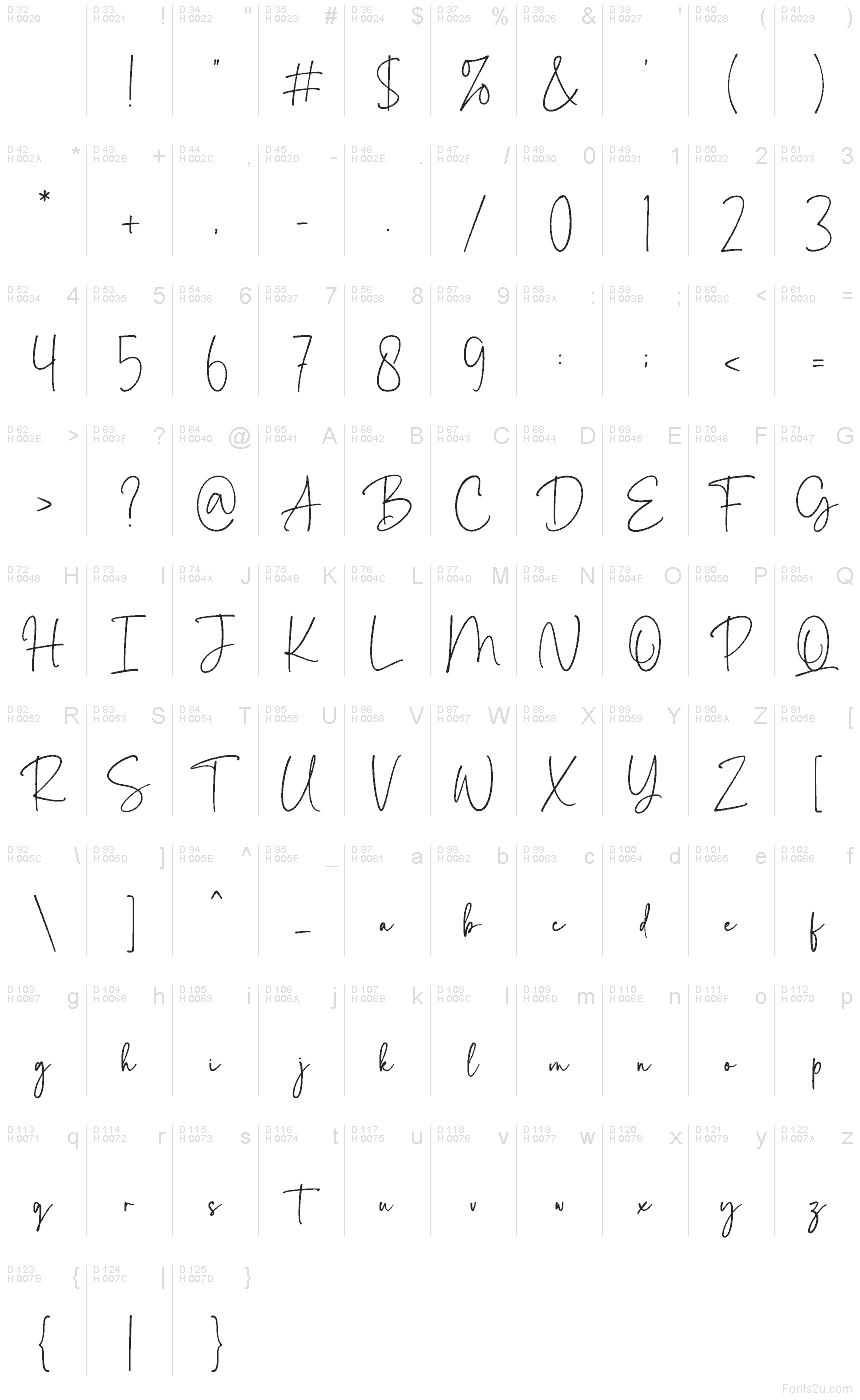
Anytta
Anytta font designed by RantautypeStudio is a handwritten light font with cursive letters that blends casual elegance and expressive characters. The font is a result of combining freeform serifs and a contemporary flair that produces both dashing headlines and legible body texts. Anytta is your perfect typeface for articles, blogs, and any other personal project.